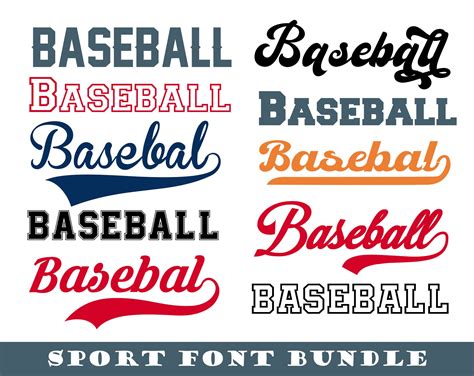
PSE Baseball Jersey: Last Name Font Guide
Hey baseball fans! Ever wondered what kind of font is used on the back of those sweet PSE Baseball jerseys ? You know, the ones with your name proudly displayed? Well, you’re in luck, because we’re diving deep into the world of PSE Baseball jersey last name fonts ! This guide is for all you baseball enthusiasts out there looking to personalize your gear. We’ll be exploring the fonts, styles, and everything else you need to know to make your PSE Baseball jersey truly stand out. Whether you’re a seasoned player, a die-hard fan, or just someone who loves the look of a custom jersey, we’ve got you covered. Let’s get started, shall we?
So, what exactly are we talking about when we say “font”? In the context of a PSE Baseball jersey , the font is the specific style of lettering used to display your last name or any other text you choose. It’s not just about picking a random letter style; it’s about choosing a font that complements the jersey’s design, reflects your personality, and, most importantly, is easily readable. Think about it: you want your name to be visible from the stands, right? That means the font needs to be clear, bold, and stylish. With so many options available, it can be tough to know where to begin. But don’t worry, we’re here to break it down and simplify the process. We’ll look at the most popular fonts, discuss their characteristics, and give you some tips on choosing the perfect one for your PSE Baseball jersey . We’ll also touch on things like font size, color, and how they all work together to create a cohesive and eye-catching design. After all, your jersey is more than just a piece of clothing; it’s a statement. And the right font can make all the difference in making that statement loud and clear.
Now, before we jump into the fonts, let’s talk about the importance of readability. This is key, guys! The font you choose needs to be easy to read from a distance. Imagine you’re on the field, or in the stands cheering your favorite team. You want people to be able to instantly recognize your name. That means avoiding overly complex or stylized fonts that might be difficult to decipher. Simple, clean fonts often work best. Bolds and strong fonts are generally preferred, as they make the letters stand out. Think about it this way: your PSE Baseball jersey is a billboard for your name. You want it to be clear, concise, and attention-grabbing. We’ll cover various options, from classic block letters to more modern styles. We’ll explain the pros and cons of each, helping you make an informed decision. Remember, the goal is to create a jersey that looks great and is instantly recognizable. So, as we delve into the world of fonts, keep readability at the forefront of your mind. We’ll guide you through each step, helping you create a jersey that you’ll be proud to wear.
Alright, let’s get into the nitty-gritty and explore some of the most popular font styles used on PSE Baseball jerseys . This is where the fun begins, and you can start to envision your personalized jersey. We’ll look at various fonts, each with its unique characteristics and style. From classic and timeless options to more modern and trendy choices, you’ll have plenty to choose from. Keep in mind that the best font for you will depend on your personal preferences and the overall look you’re going for. Some fonts are more traditional, fitting seamlessly with the heritage of the game, while others offer a modern twist. The font also needs to complement the design of your jersey. A bold font might look great on a simple jersey, while a more intricate design may call for a simpler font to avoid visual clutter. We’ll cover everything, giving you a comprehensive understanding of the options available. Get ready to discover the perfect font that will make your PSE Baseball jersey truly yours. Let’s dive in!
1. Block Letters:
Classic, reliable, and instantly recognizable – block letters are a staple in baseball. They’re straightforward, easy to read, and have a timeless appeal. Think of the jerseys worn by legendary players throughout history; block letters are often the font of choice. This font style is known for its bold, clean lines, making it easy to see your name from any distance. There are different variations within the block letter category, some with rounded edges, others with sharp corners, and some with a slight slant. The beauty of block letters is their versatility. They can be adapted to fit various jersey designs, whether you’re going for a retro look or a more modern vibe. You can easily customize this classic font with different colors and sizes to match your team or personal style. It’s an ideal choice if you want something simple yet impactful. It’s a safe bet that will always look great on the back of your PSE Baseball jersey . Block letters are a go-to for a reason, and if you’re unsure where to start, you can’t go wrong with this timeless style. You’ll often see them used by professional teams and in youth leagues alike, highlighting its universal appeal. It’s a font that embodies the spirit of baseball.
2. Script Fonts:
Script fonts add a touch of elegance and flair to your PSE Baseball jersey . They’re more stylized than block letters, with flowing, cursive-like designs. Script fonts come in various styles, from classic and sophisticated to more playful and modern. The key is to choose a script font that is still legible, even from a distance. You don’t want your name to look like a scribble! Script fonts can be a great way to add personality to your jersey. They’re often seen on jerseys that aim for a vintage or retro feel, evoking a sense of nostalgia. However, script fonts can also be used in modern designs, offering a unique and stylish look. When considering a script font, pay close attention to the details. The thickness of the lines, the degree of slant, and the overall flow of the letters all play a role in the font’s appearance. Remember that legibility is key. Make sure the script font you choose is easy to read, even when it’s on the back of your jersey. If you want a jersey that stands out from the crowd and makes a statement, a well-chosen script font can be a fantastic option. It’s a great way to show off your style and add a personal touch to your baseball gear.
3. Athletic Fonts:
Athletic fonts are designed specifically for sports apparel. They combine the best elements of readability and style. These fonts often feature bold, dynamic designs that convey a sense of movement and energy. They’re designed to be easily seen and recognized, even when the wearer is in motion. This font category includes various styles, from streamlined, modern fonts to more traditional, vintage-inspired options. They are often characterized by their clean lines, strong shapes, and a slightly sporty aesthetic. Athletic fonts are a versatile choice that suits a wide range of PSE Baseball jersey designs. They’re well-suited for both team jerseys and personalized jerseys, offering a balance of style and functionality. Whether you want a font that looks modern, classic, or somewhere in between, there’s an athletic font style that will fit the bill. They typically have a slightly angled or italicized appearance, giving a sense of speed and dynamism. Athletic fonts are a good choice if you want your PSE Baseball jersey to look professional, polished, and ready for action. They are made to perform, and ensure your name is displayed with clarity and style, making them a perfect addition to any player’s or fan’s wardrobe.
Choosing the Right Font: Factors to Consider
Choosing the right font for your PSE Baseball jersey goes beyond just liking a particular style. Several factors can influence your decision and ensure your jersey looks its best. Here, we’ll discuss the key elements you need to consider. From jersey design to personal preferences, these tips will help you make an informed decision and create a jersey you’ll be proud to wear. Let’s make sure your jersey is a hit, shall we?
1. Jersey Design:
The existing design of your PSE Baseball jersey is a critical factor in font selection. Consider the colors, patterns, and overall style of the jersey. If your jersey has a busy design with lots of graphics or stripes, you might want to opt for a simple font, such as block letters. This helps prevent the jersey from looking cluttered. Conversely, if your jersey has a minimalist design, you might choose a more stylized font to add visual interest. Pay attention to the colors of your jersey and the intended font colors. Ensure there is enough contrast between the font and the jersey color so your name is easily visible. If your jersey has a vintage look, a script font or a retro-inspired athletic font might be a perfect choice. For a more modern look, consider a sleek, clean font. Matching the font to the overall style of your jersey is essential for a cohesive and visually appealing result. Make sure that the font complements the jersey’s existing elements, rather than competing with them. This is the first step in creating a winning look.
2. Readability:
Readability is paramount. No matter how much you love a particular font, if it’s difficult to read, it’s not the right choice for your PSE Baseball jersey . Always prioritize clarity, particularly when it comes to the font used for your last name. Choose a font that is easy to decipher from a distance. The font’s size and weight are also important factors. A bolder font is generally more readable, especially if the jersey will be viewed from afar. Avoid fonts with overly intricate details or thin lines, as these can be hard to read. Test out the font by viewing it from a distance before making a final decision. Consider the impact of the font color on readability. High contrast between the font and jersey colors will significantly improve readability. Ensure your name is clearly visible so that you can make the biggest impression.
Conclusion: Creating Your Perfect PSE Baseball Jersey
So, there you have it! You’re now well-equipped to design a PSE Baseball jersey that you’ll be proud to wear. We’ve covered the ins and outs of fonts, customization, and where to get your jersey personalized. From understanding the various font styles to choosing the right colors and sizes, you’re now ready to create a jersey that reflects your style and passion for the game. Remember to consider your jersey design, prioritize readability, and let your personal preferences guide you. Whether you’re a player, a fan, or just love the look of a baseball jersey, the right font is essential. Now go out there and create a jersey that makes a statement. Let your name shine with a perfect font, and you’ll be set! Happy designing, and enjoy the game!